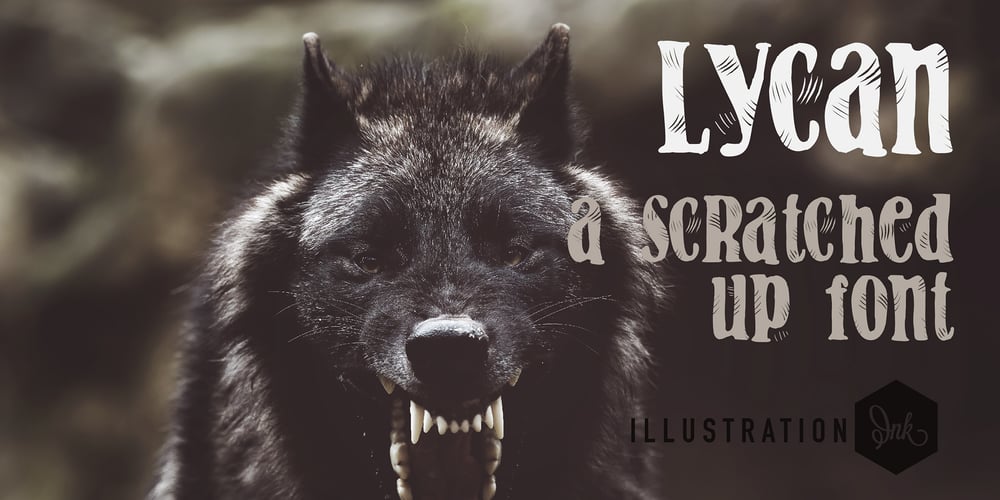
ZP Lycan Font Family was designed by Illustration Ink and published by Illustration Ink. ZP Lycan contains 1 styles and family package options. This hand-crafted font is sporting scary claw marks throughout for a scary, haunted feeling.